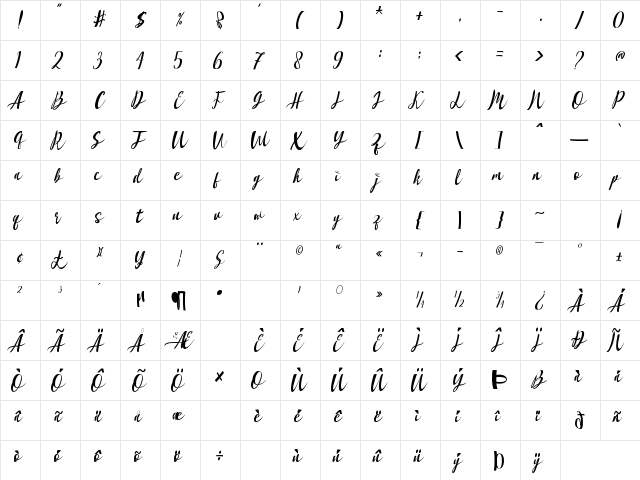
Hasnabilla Regular
| Designer | Mengulirpena_ 2020 (Deny Dwi Kurniawan) |
Design Context for Hasnabilla Typeface
Hasnabilla is a composed and adaptable typeface that performs quietly and consistently across a wide range of design contexts.